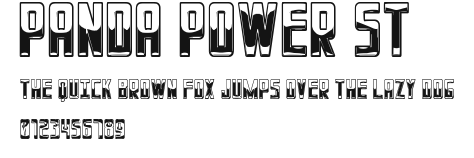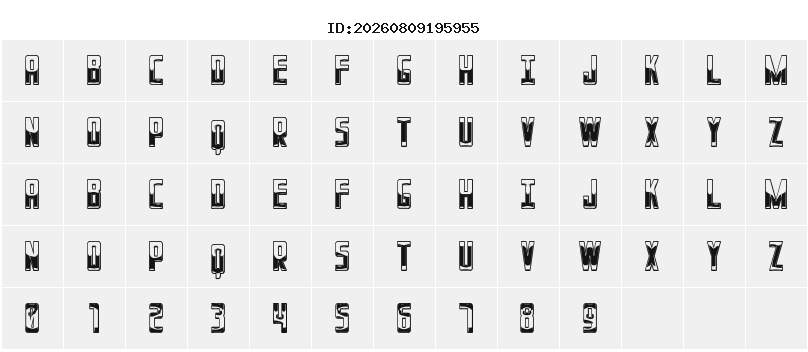
• Font Name: Panda Power St
• Designer: This font is an original work of southype dot com
• Manufacturer: www.southype.com
About Panda Power St.ttf
Panda Power St.ttf is a modern, elegant sans-serif font designed for ultimate readability and visual harmony. Perfect for branding, headlines, web design, and print materials.